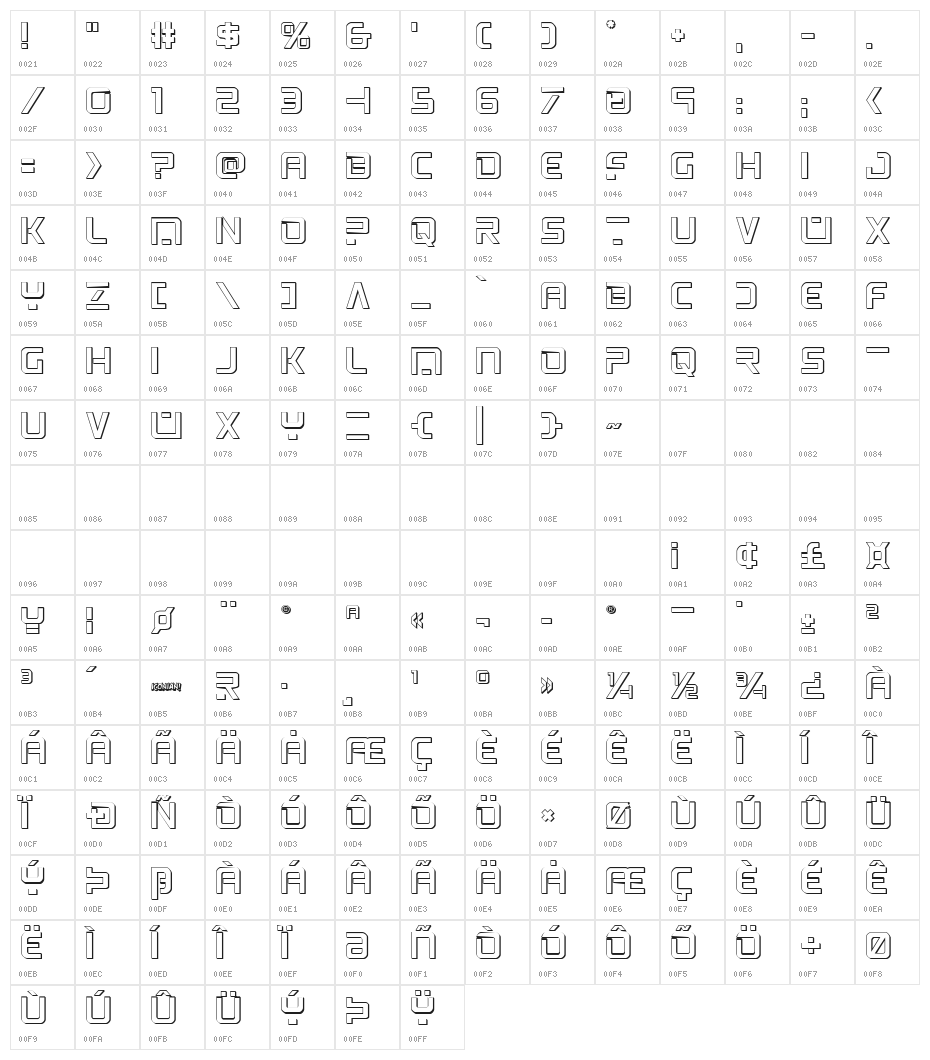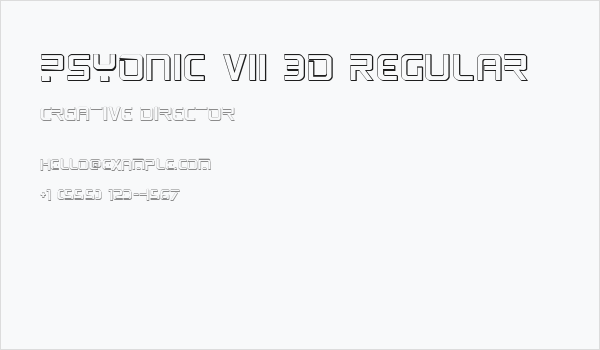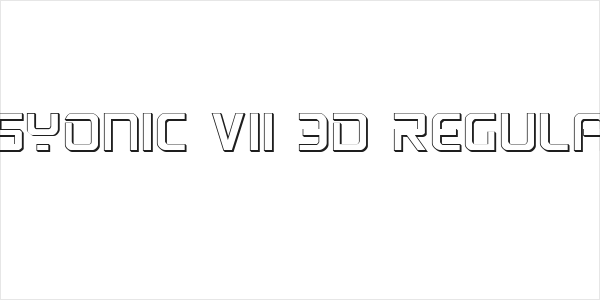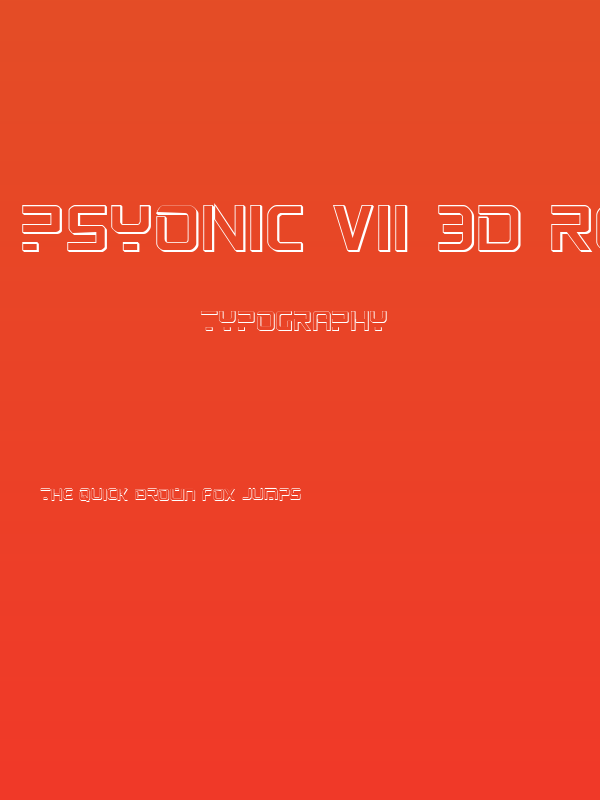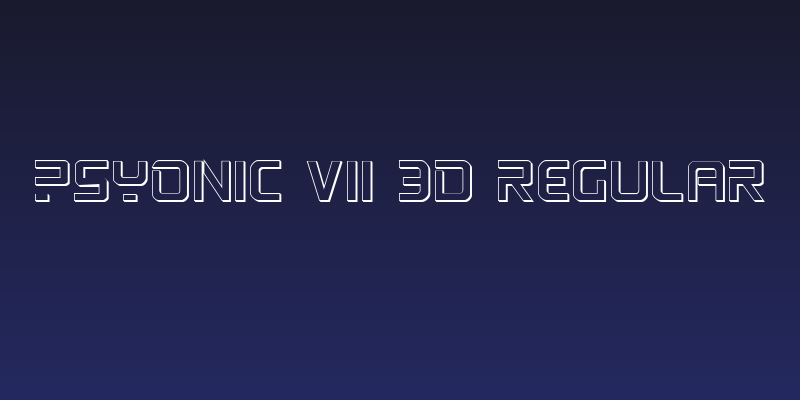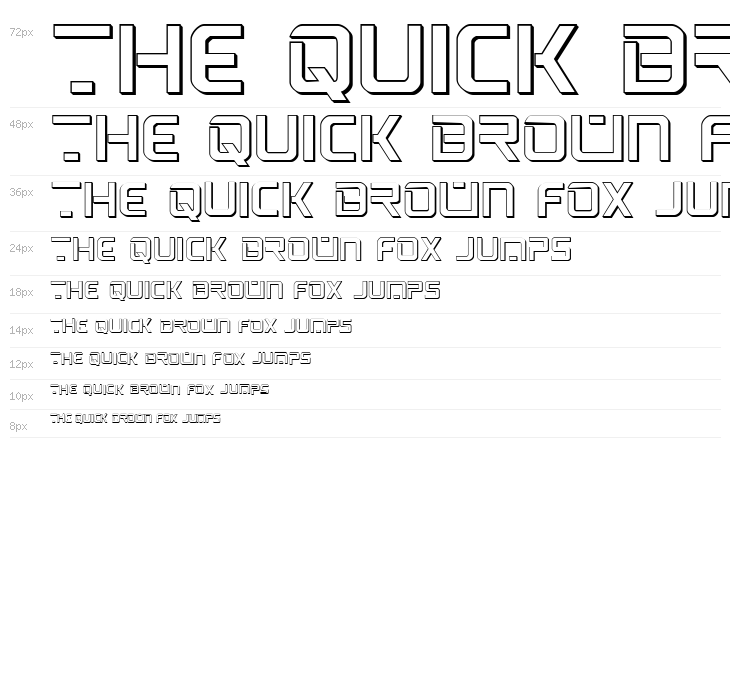
PsYonic VII 3D Regular Font
PsYonic VII 3D Regular Description
This font features a futuristic and geometric design, characterized by its hollow, outlined letterforms. Each character is constructed with clean, angular lines and a consistent stroke width, giving it a modern and tech-inspired appearance. The uppercase and lowercase letters maintain a uniform style, with distinct, sharp edges and a minimalistic aesthetic. The numerals and special characters follow the same design principles, ensuring a cohesive look across all glyphs. This font's unique style makes it stand out, ideal for projects that require a contemporary and innovative touch.